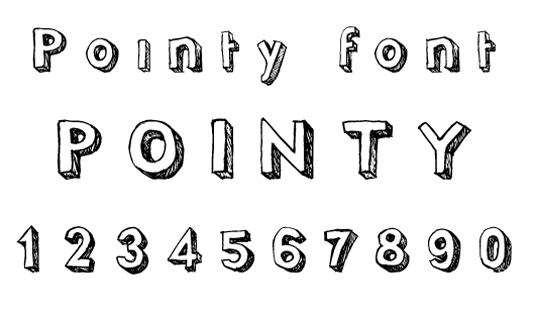
16 free grunge fonts
Take advantage of this compilation of free grunge fonts that you can put to use in your cool designs.
We've scoured the web to find you top free grunge fonts available to download now. Free fonts in a grungey style are becoming increasingly popular. Instead of shiny, crisp typefaces, many artists and designers are seeking to use an urban, dirty, street style in their designs. So check out our list – you're bound to find something that you can add to your design for free.
01. Soul Mission
An artist called Martin J is the brains behind this cool distressed font. One of the most popular free grunge fonts around, it has amassed over a million downloads since its release. Martin J generously offers his creation free for use in both personal and commercial projects.
02. Marcelle
One of our favourite free grunge fonts, this old-school, distressed style typeface was created by French graphic designer Clement Nicolle. Owner of the site Stereotype, Nicolle has multiple free fonts available online, with Marcelle the most popular by far with nearly five million downloads. The typeface is free for personal use, with donations to the author gratefully received.
03. Times New Yorker
Looking for free grunge fonts with a touch of class? That might sound like a tall order but how about this: Times New Yorker is a dirty, graffiti version of Times New Roman. The design, which features ink drips, smudges and paint splatters, was developed by D.O.C.S back in 2007 and has been a popular grunge font choice for creatives ever since. It's free for personal use only.
04. Defused
French art director Vincent Wicky-Demaria is the man behind this destroyed font. Free for personal use only, this grunge font comes complete with a full set of uppercase letters and numbers and a selection of special characters.
05. Zombilaria
Graphic designer and illustrator Daniel Shinn is responsible for this cool font Zombilaria. Free for both personal and commercial use, this patchy, sinsister-looking typeface is sure to give your designs an authentic grunge feel.
06. Everyday Ghost
Everyday Ghost is one of 82 grunge fonts created by typeface designer Andrew Hart. The design, which features smudges and blotchy effects, adds an interesting twist to an otherwise generic serif font. Free for personal use only.
07. Fail
This cool typeface does anything but what its name suggests, having been downloaded hundreds of thousands of times since its release. This is one of 166 grunge fonts designed by Douglas Vitkausk, whose work has amassed over 15 million downloads. It's free for personal use only.
08. Laundromat 1967
This cool Laundromat 1967 typeface would make a great newspaper-type ransom note design. Developed by designer Gyom Séguin aka Last Soundtrack, this is one of 46 fonts he's crafted. The full set of this particular grunge font features uppercase letters and numbers. Free for personal use only.
09. Pointy
This Pointy typeface by James Beardmore has a sketchbook doodle feel to its design. The grunge font includes a full set of lower and uppercase letters and numbers 0-9. Free for personal use only. The full set, which includes European glyphs can be purchased here.
10. Punk Kid
Created by designer Livin Hell, this grunge font is a popular free download. The full set of capital letters includes some smudged characters to give the font an authentic feel. Free for personal use only.
11. Killed DJ
Designer Billy Argel based this cool grunge font on the Pump Triline typeface by British designer and typographer Philip Kelly. And this illustration shows just how well the design would work on a gig poster. The set includes a full set of uppercase letters. Free for personal use only.
12. Abusive Pencil
Created by designer Scott Ferguson, this Abusive Pencil font is a popular choice among creatives, having been download 1.6 million times since its release. The free version of this grunge font includes a set of uppercase letters and numbers 0-9. Free for personal use only.
13. 1942
This grungy typewriter-style font was created by designer Johan Holmdahl. The free version includes a full set of upper and lowercase letters, numbers 0-9 and special characters. It also looks to be free for both personal and commercial use, but check at the time of download.
14. Birth of a Hero
Another design by Last Soundtrack, this bold grunge font is perfect suited to gig or event posters. The free version of this typeface comes complete with upper and lowercase letters, and numbers 0-9. Free for personal use only.
15. Heroin 07
For a dirty, street art-style design, check out this cool grunge font, another by Clément Nicolle aka StereoType. The free version of this typeface includes a full set of uppercase letters and numbers. Free for personal use only.
16. NeoPrint M319
From raw to rare, Polenimschaufenster has released a number of typefaces, including this dirty typewriter-style grunge font NeoPrint M319. Some seriously creative designs could be developed with this typeface, which is free for personal use only.